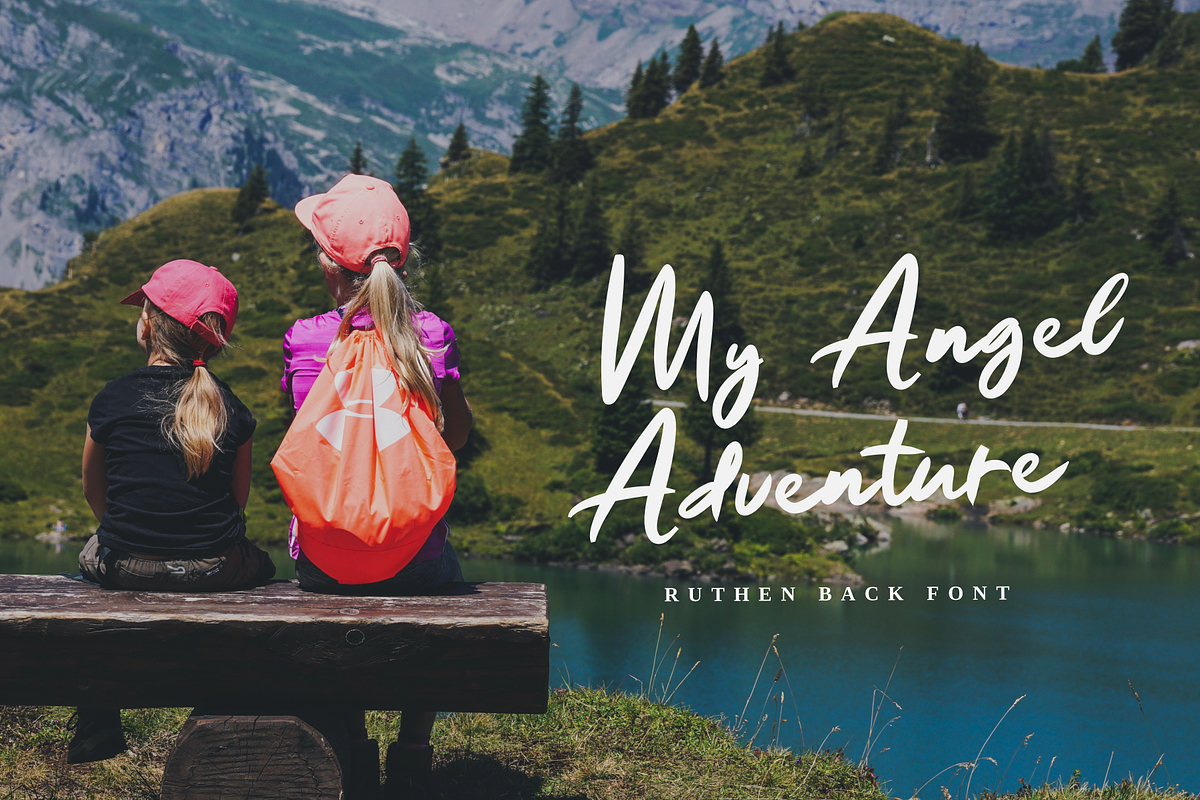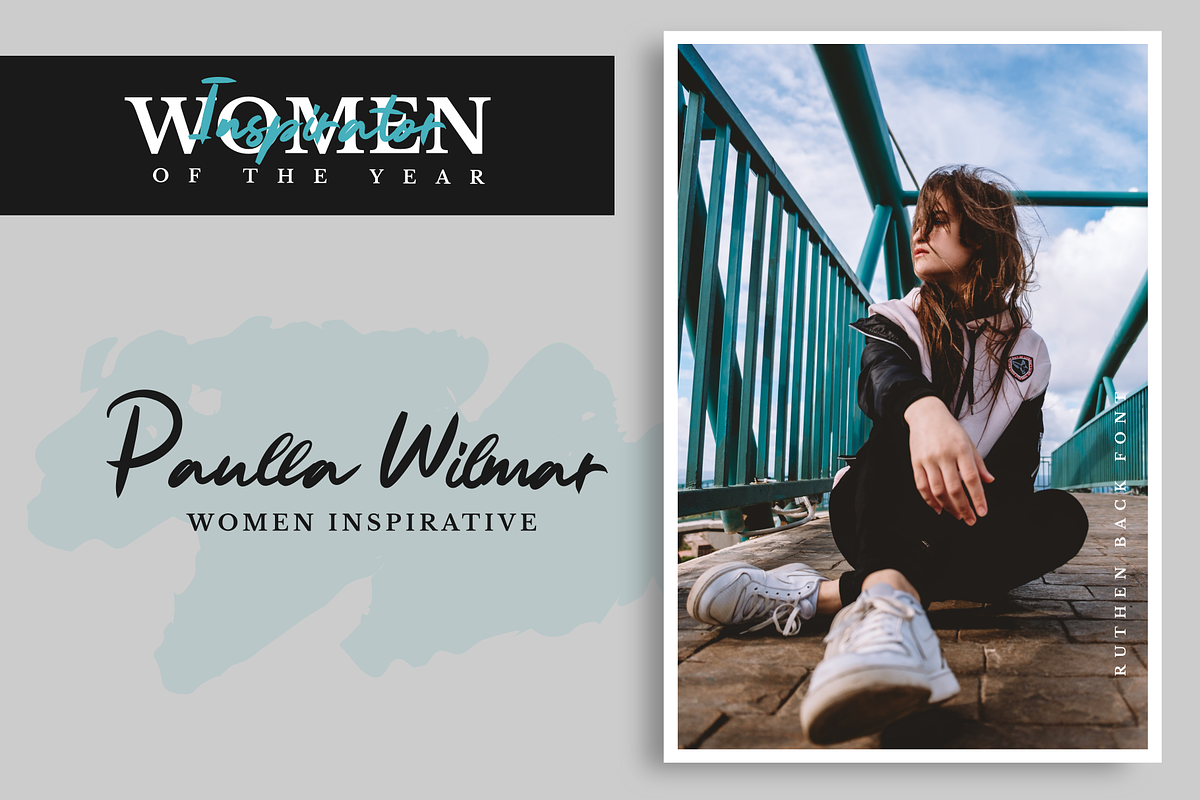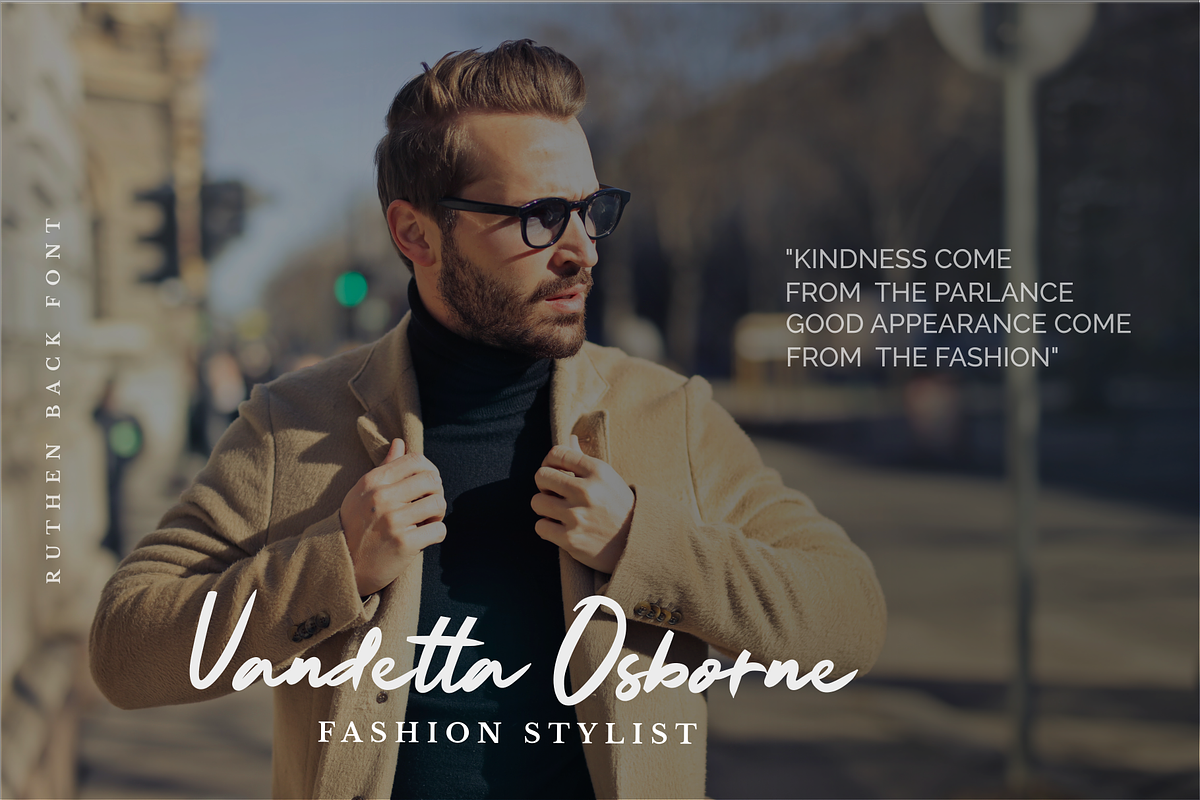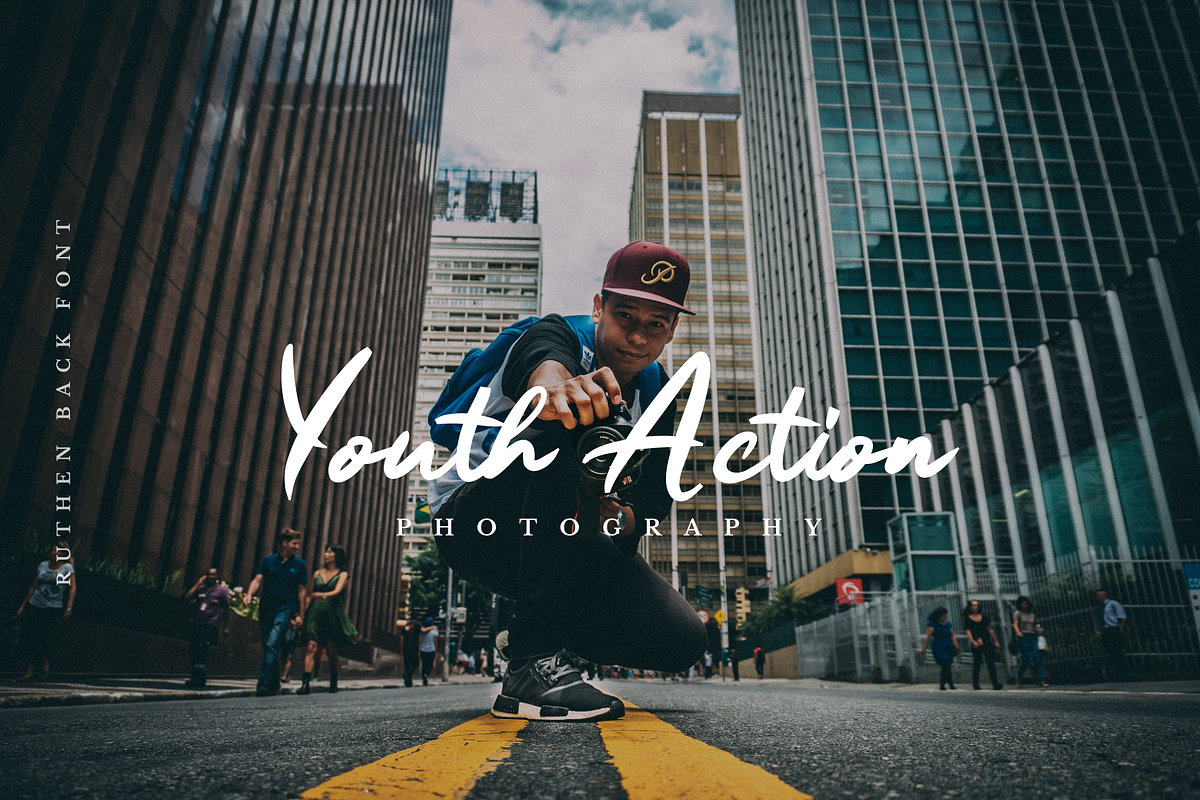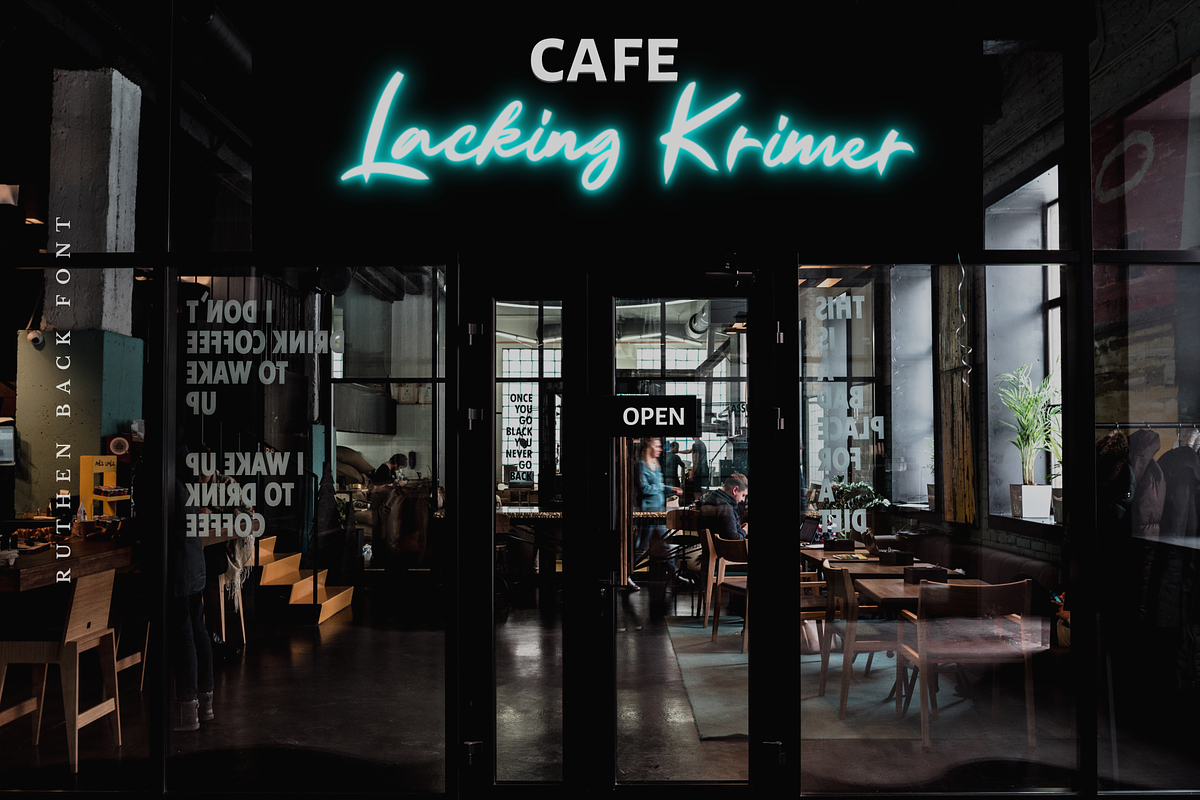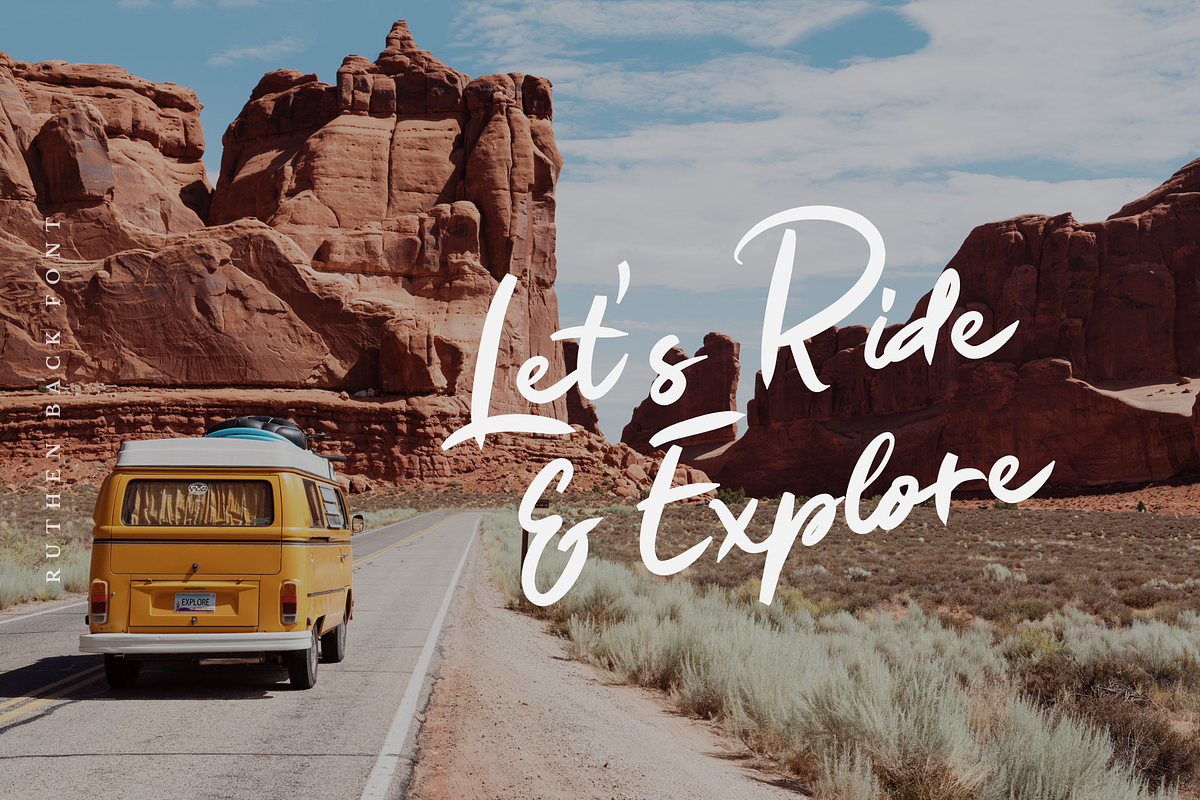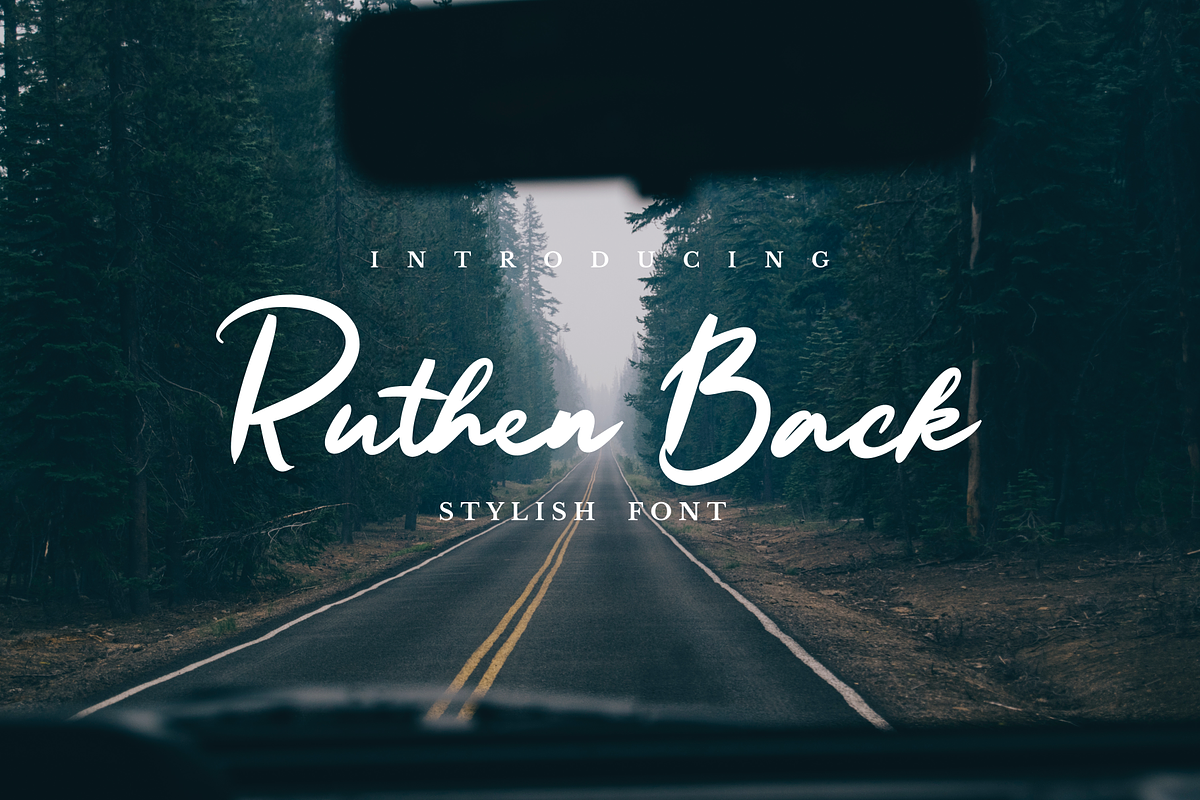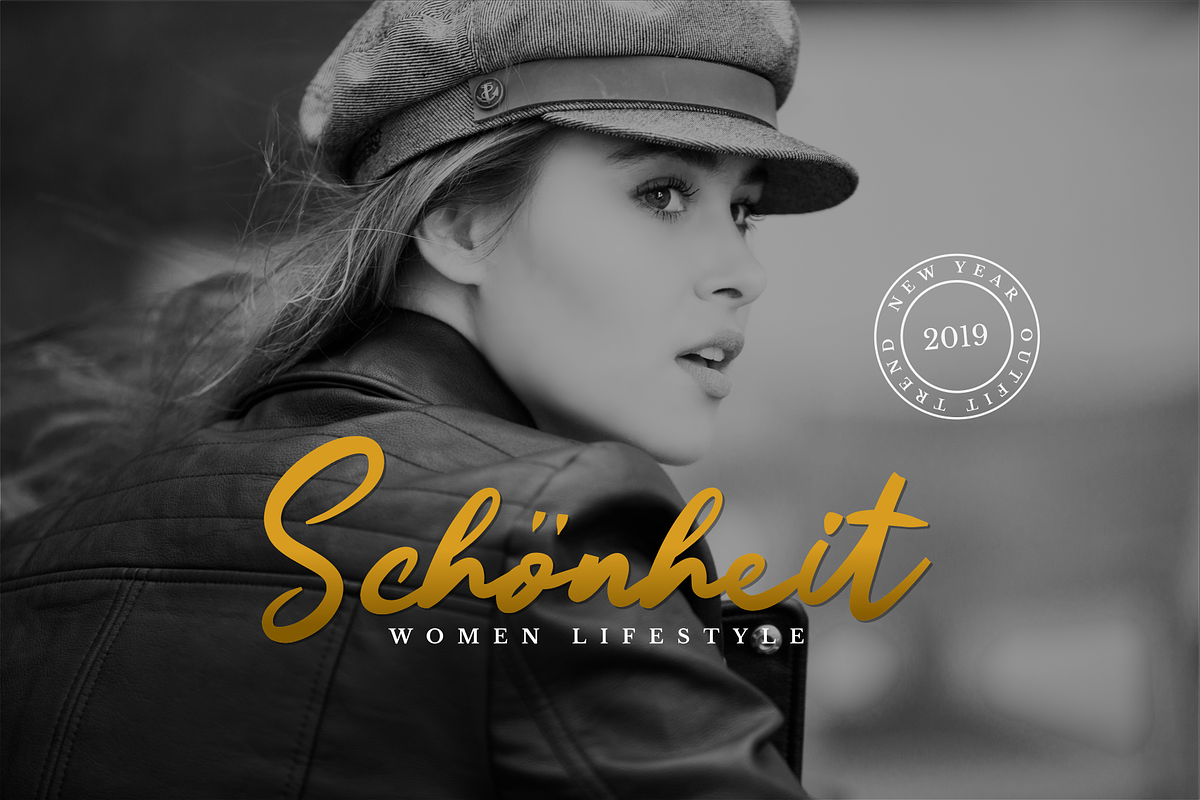
Ruthen Back - Stylish Font
Ruthen Back offering different taste no like my other fonts, the script font with taste like signatures font because all characters based on stylish signature. The font always catchy and elegant if you make to personal name branding or logotype in your business. This font also looks outstanding in other project such as greeting cards, tittle book/magazine, poster, neon light logo and etc.
Uppercase and lowercase
numeral and punctuations